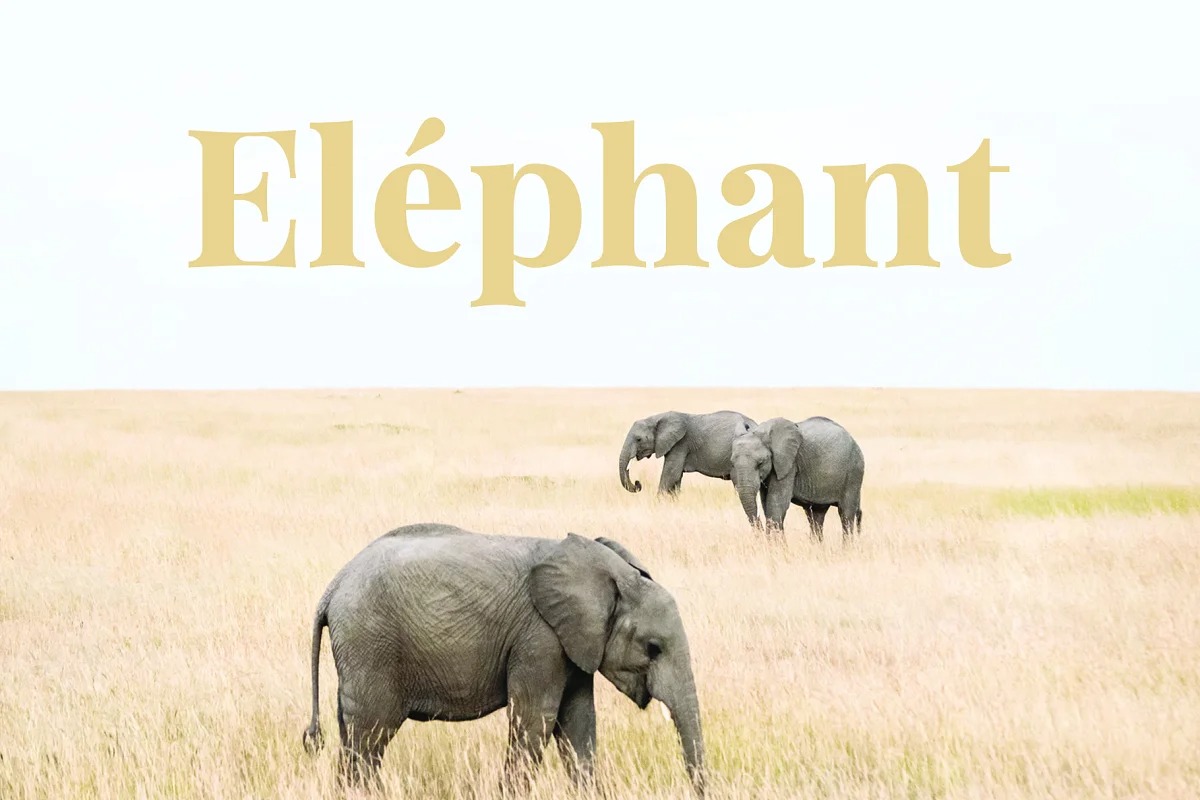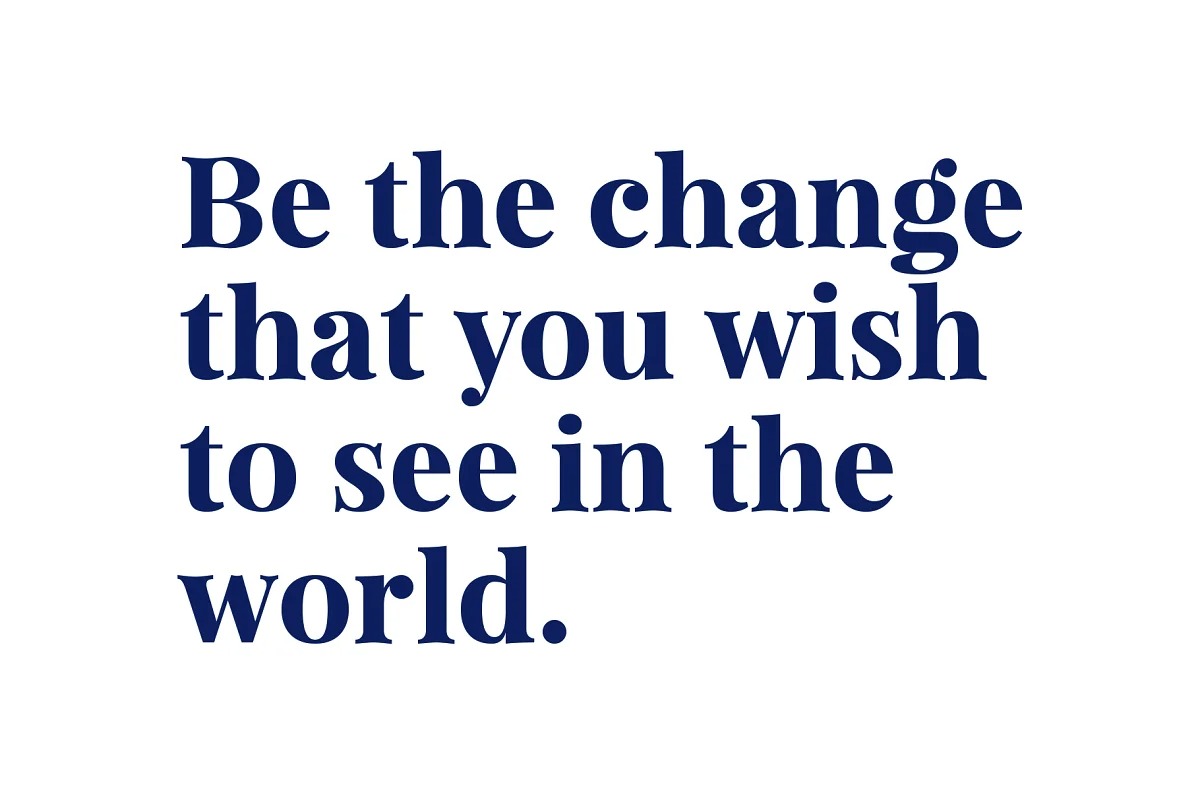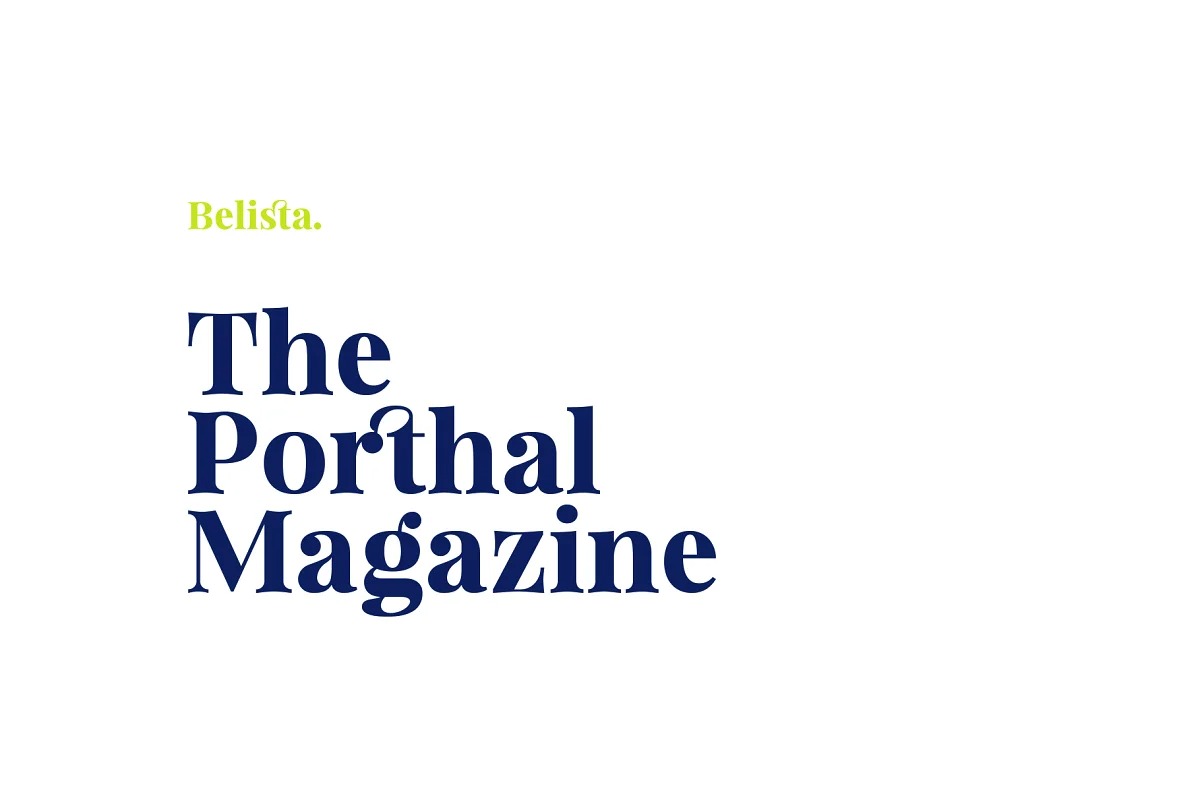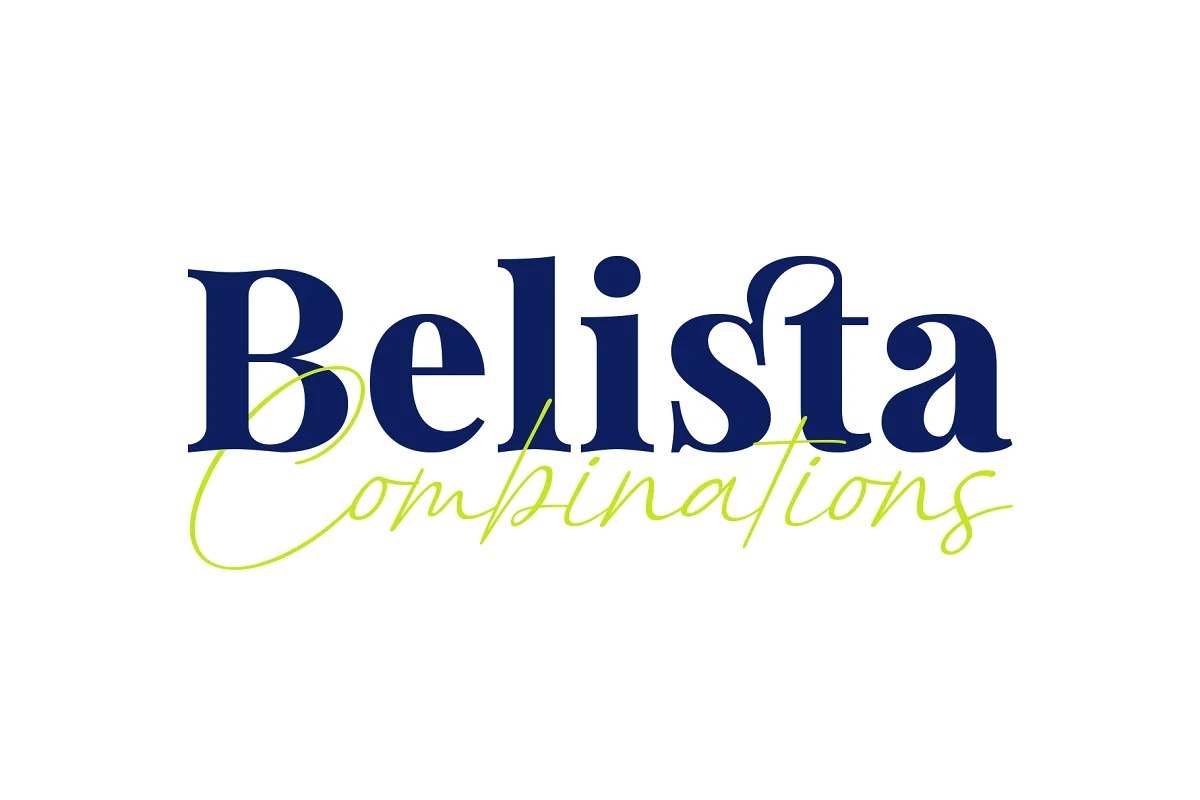
Belista Font Duo
This is a luxury font duo from designer Aantebas. which comes with a combination of modern and elegant fonts, namely serif and signature style. You can combine it to make beautiful typography. This hand display style makes it perfect for use in all your design projects be it logos, labels, packaging designs, blog titles, posters, wedding designs, social media posts, Instagram designs, card invitations, art quotes, home decor, book / cover titles , etc.